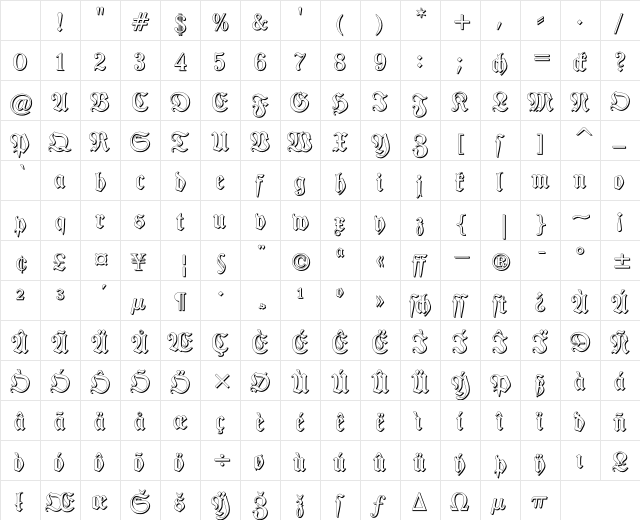
TypographerFraktur Shadow Regular
Designer: Dieter Steffmann
Design Context for TypographerFraktur Shadow
TypographerFraktur Shadow draws on the rich tradition of blackletter calligraphy, with dense, angular strokes that evoke medieval manuscripts and old-world craftsmanship.
Font Pairing: Pair with a clean neutral sans-serif for body copy to let TypographerFraktur Shadow's character lead without overwhelming the composition.
Pro Tip: Reserve TypographerFraktur Shadow for display and logo use - pair it with a clean sans-serif for body copy to prevent the composition from feeling oppressive.